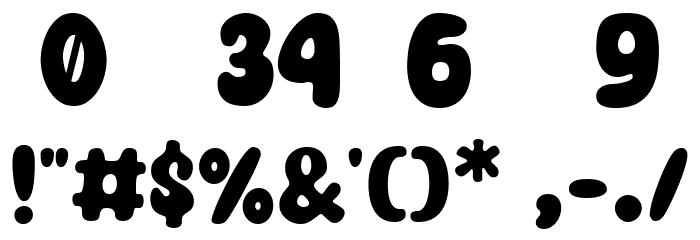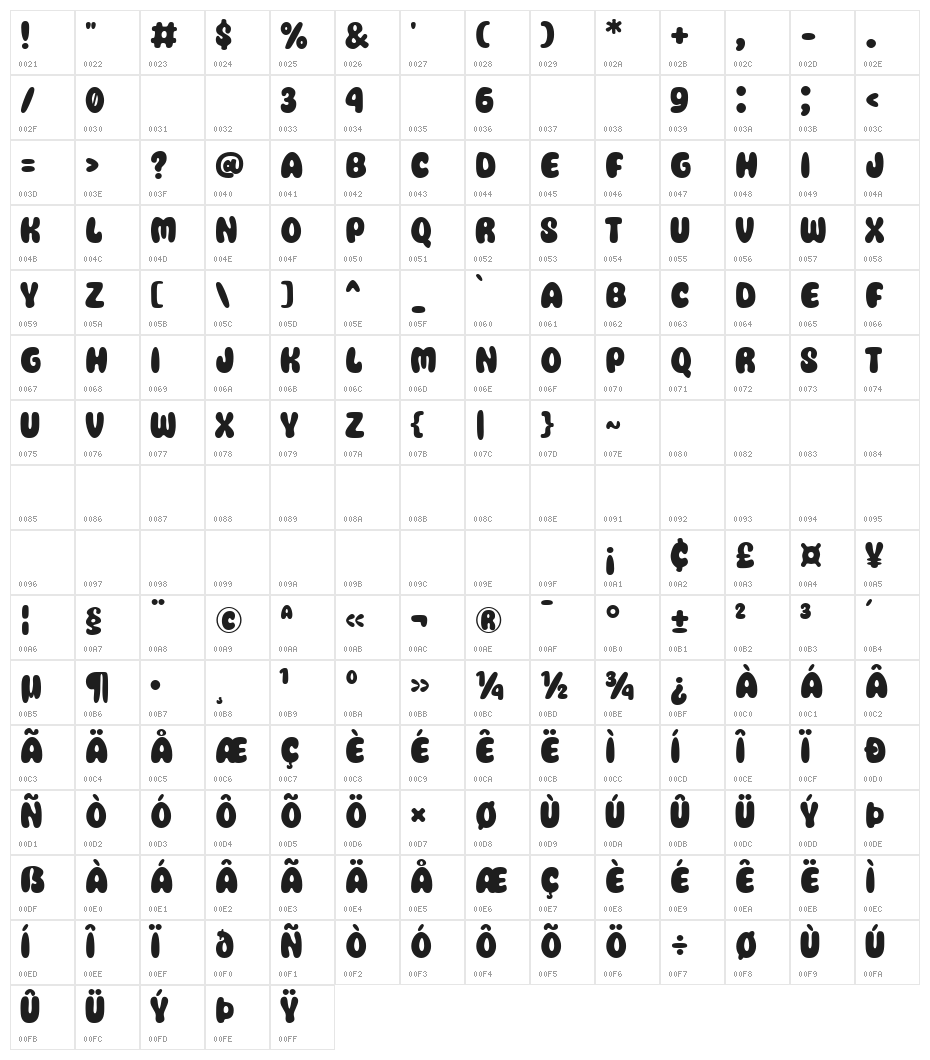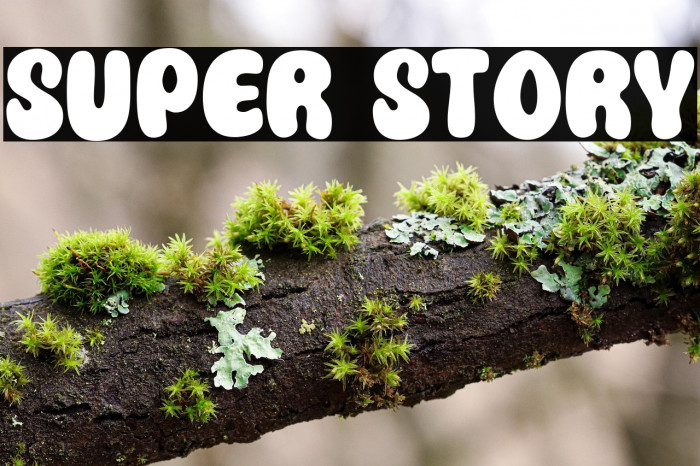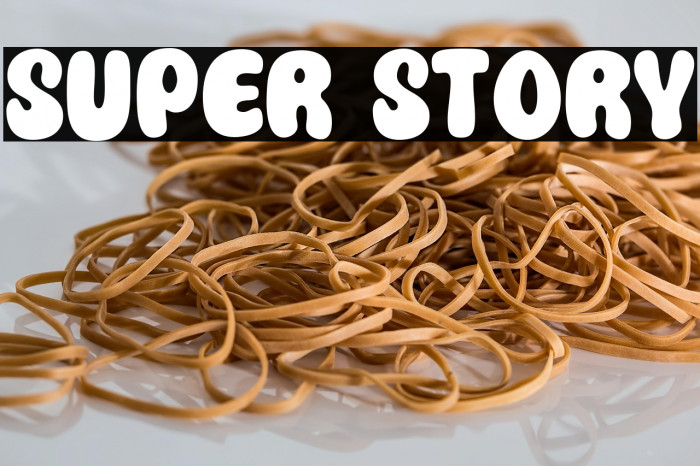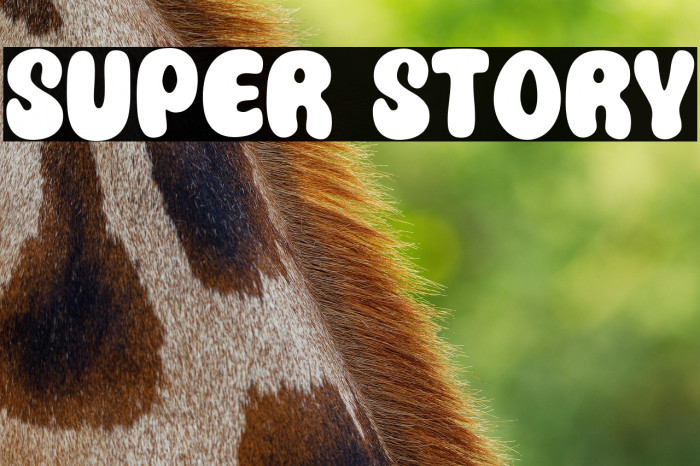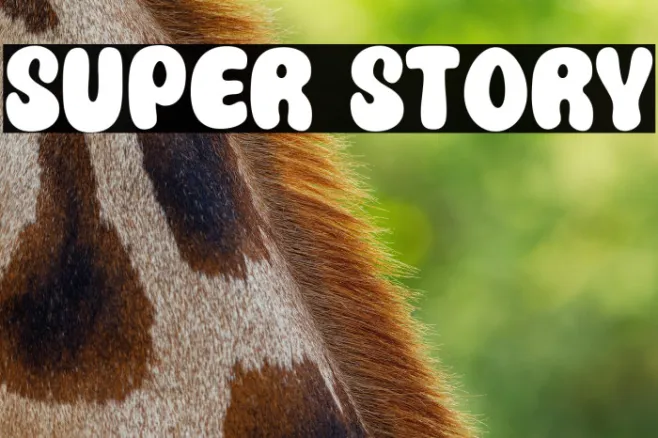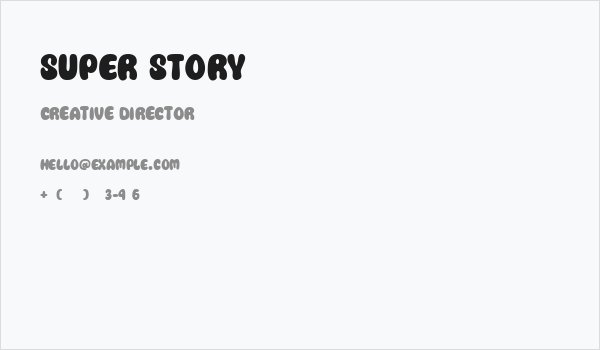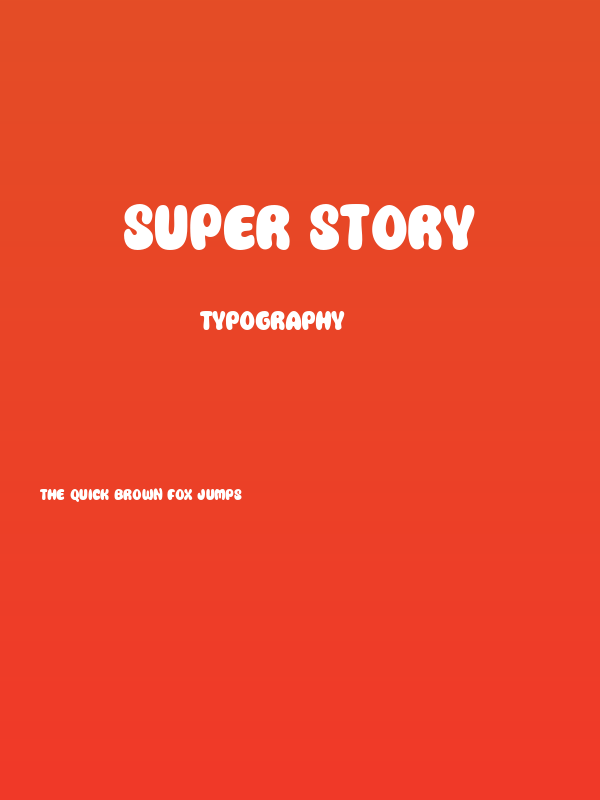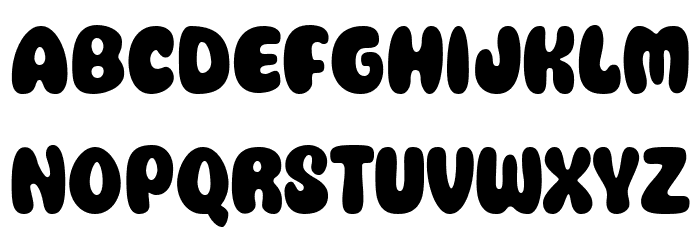
Super Story Font
Super Story Description
This font features a bold, playful design with rounded edges and a bubbly appearance. The characters are thick and have a consistent stroke width, giving them a strong presence on the page. The overall look is informal and fun, making it ideal for creative and lighthearted projects. The letters are evenly spaced, contributing to a balanced and cohesive appearance. The numbers and special characters share the same playful style, ensuring consistency across all text elements. This font is perfect for capturing attention and conveying a sense of joy and whimsy.
| Proposed Projects | Ideal for children's books, comic strips, party invitations, and playful branding. |